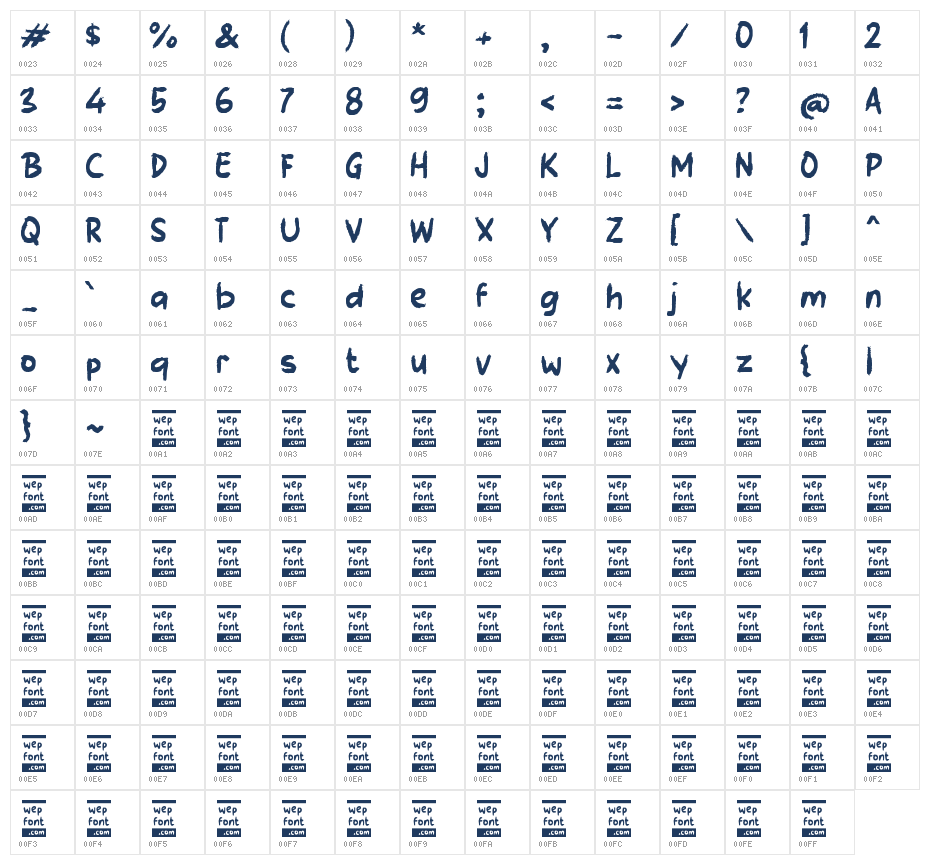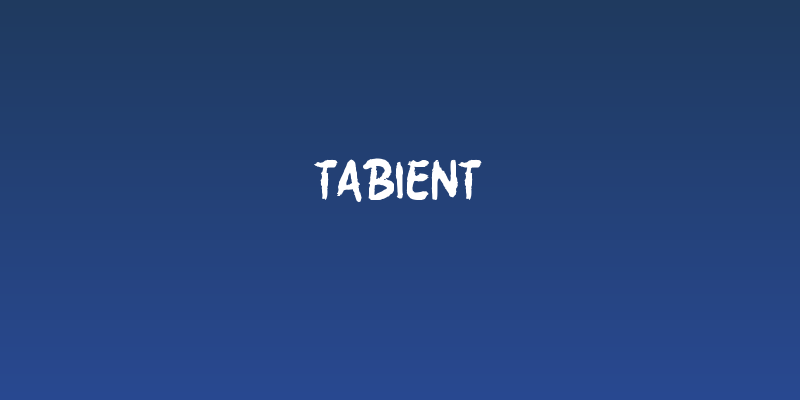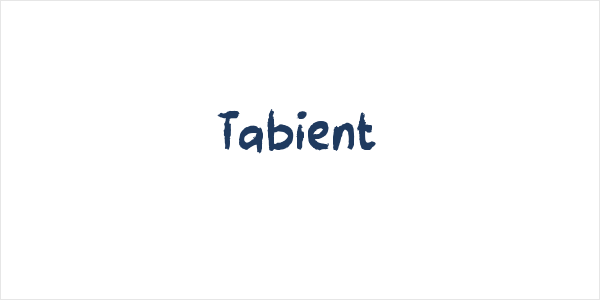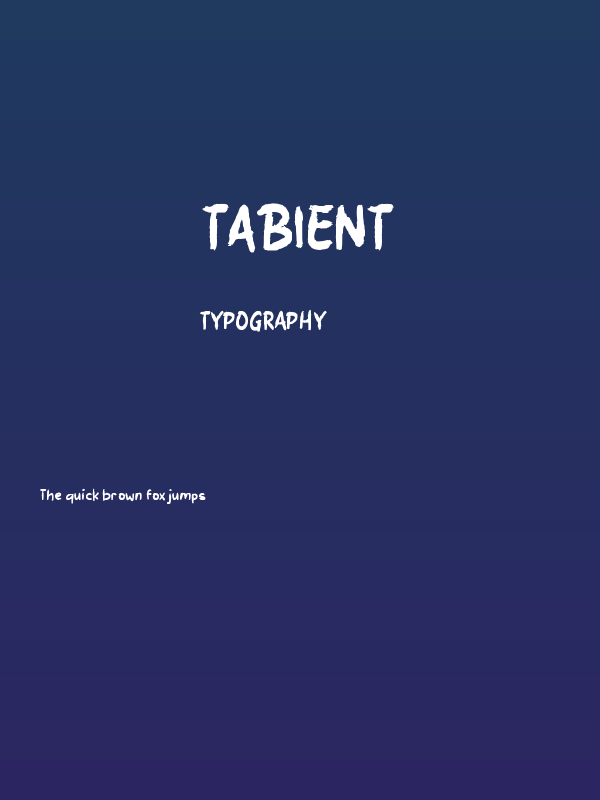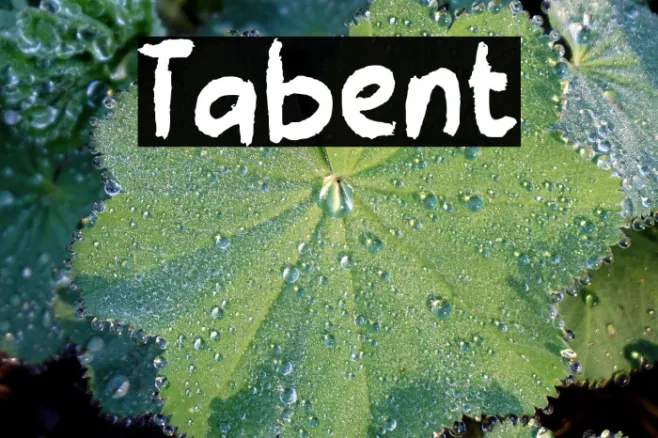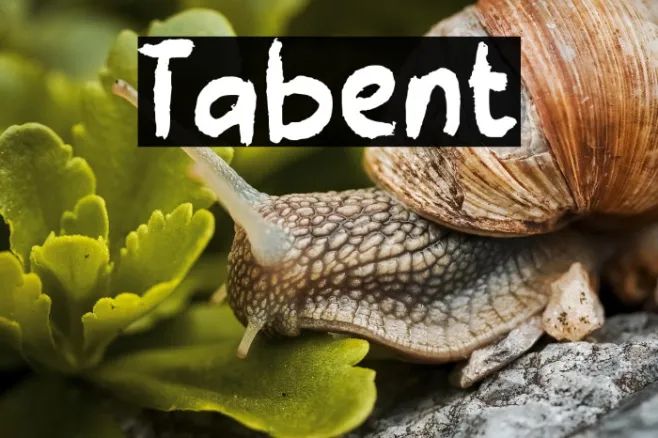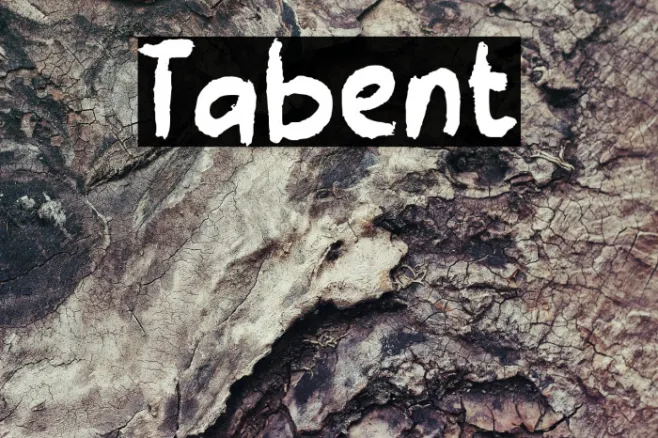
Tabient Font
Tabient Description
A casual, handwritten style font with a textured, brush-like appearance.
| Overall Style | Casual, Handwritten, Artistic |
| Use Case | Headlines, Body text, Logos, Creative projects |